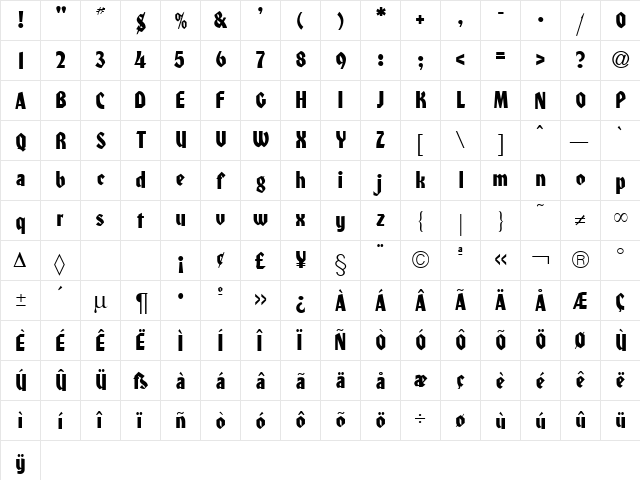
Honcho DB Regular
Design Context for Honcho DB Typeface
Honcho DB is a composed and adaptable typeface that performs quietly and consistently across a wide range of design contexts.